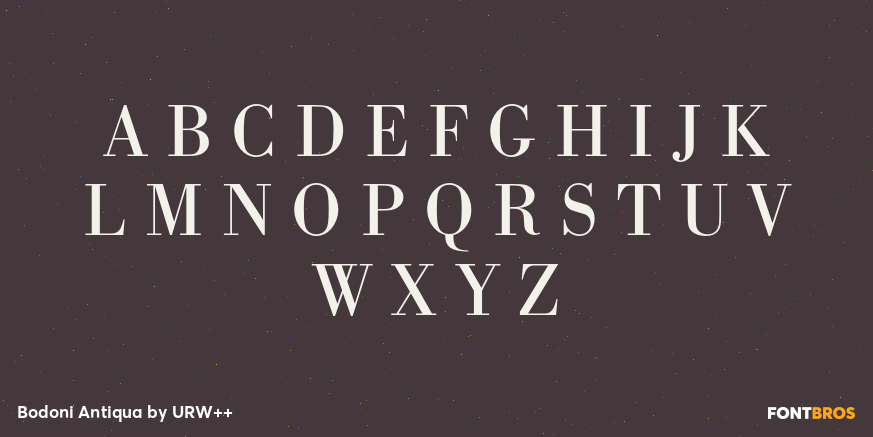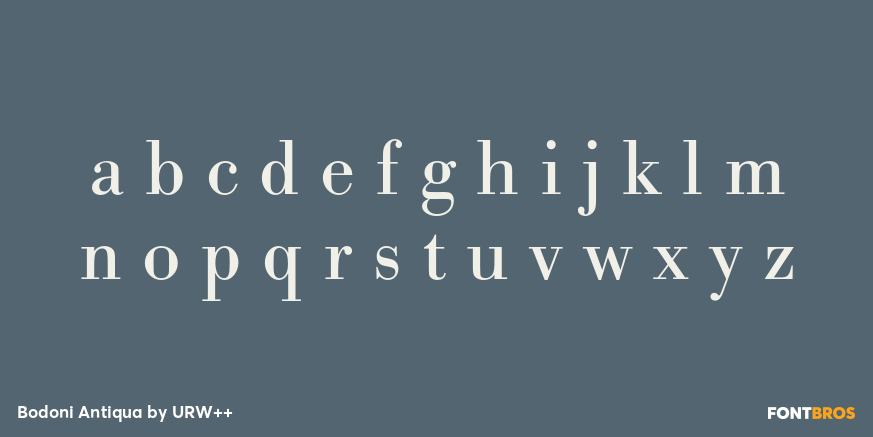
Bodoni Antiqua
With 5 included styles—Regular, Italic, Bold, Bold Italic, and Demi—this family gives designers a practical range for display settings and more structured typographic systems. Its serif detail and historic character make it a strong choice for editorial layouts, book-inspired branding, invitations, packaging, posters, and sophisticated identity work.
Published by URW++, this set is especially appealing when you want a serif that reads as cultivated, decorative, and rooted in typographic tradition.